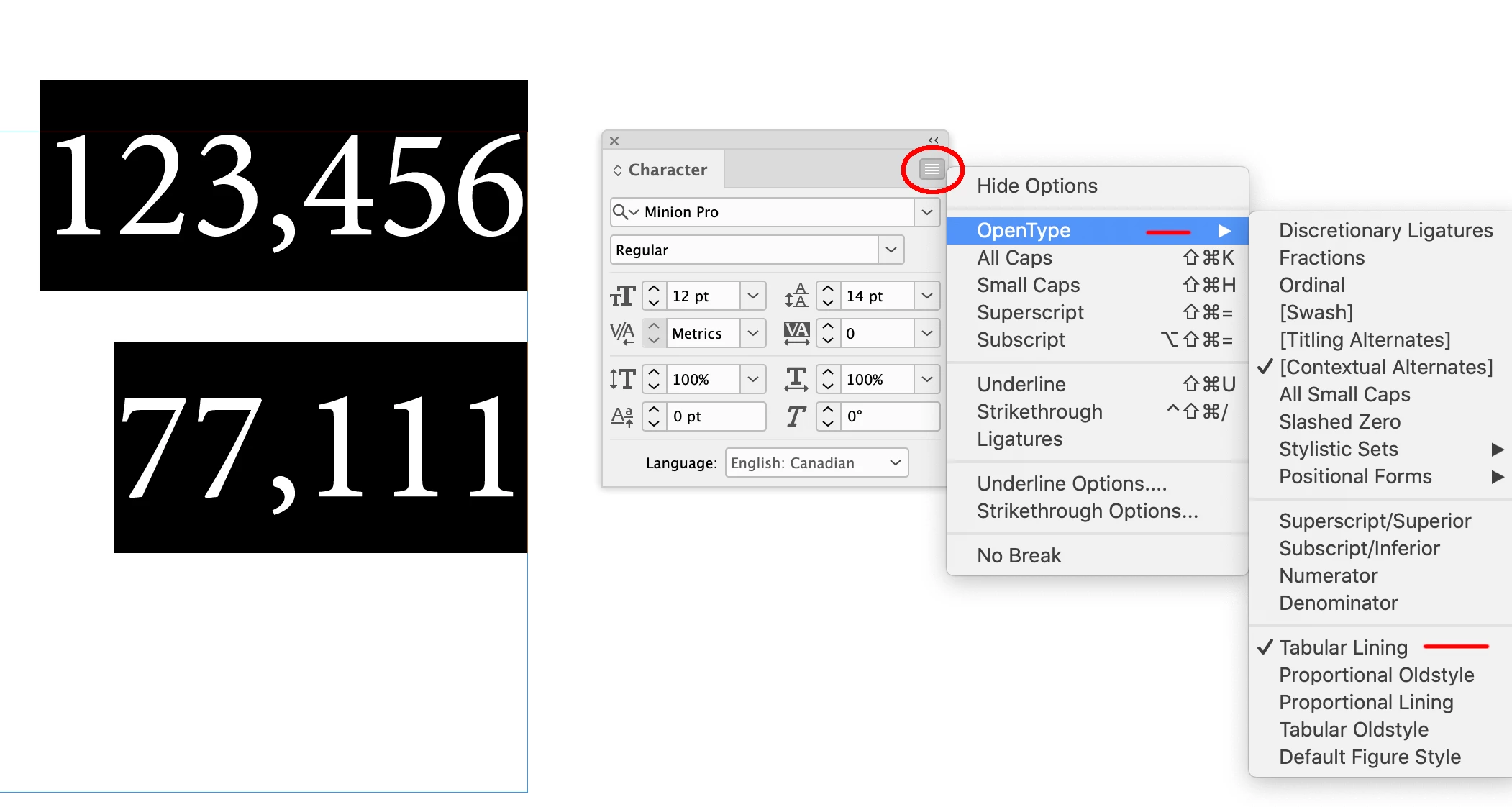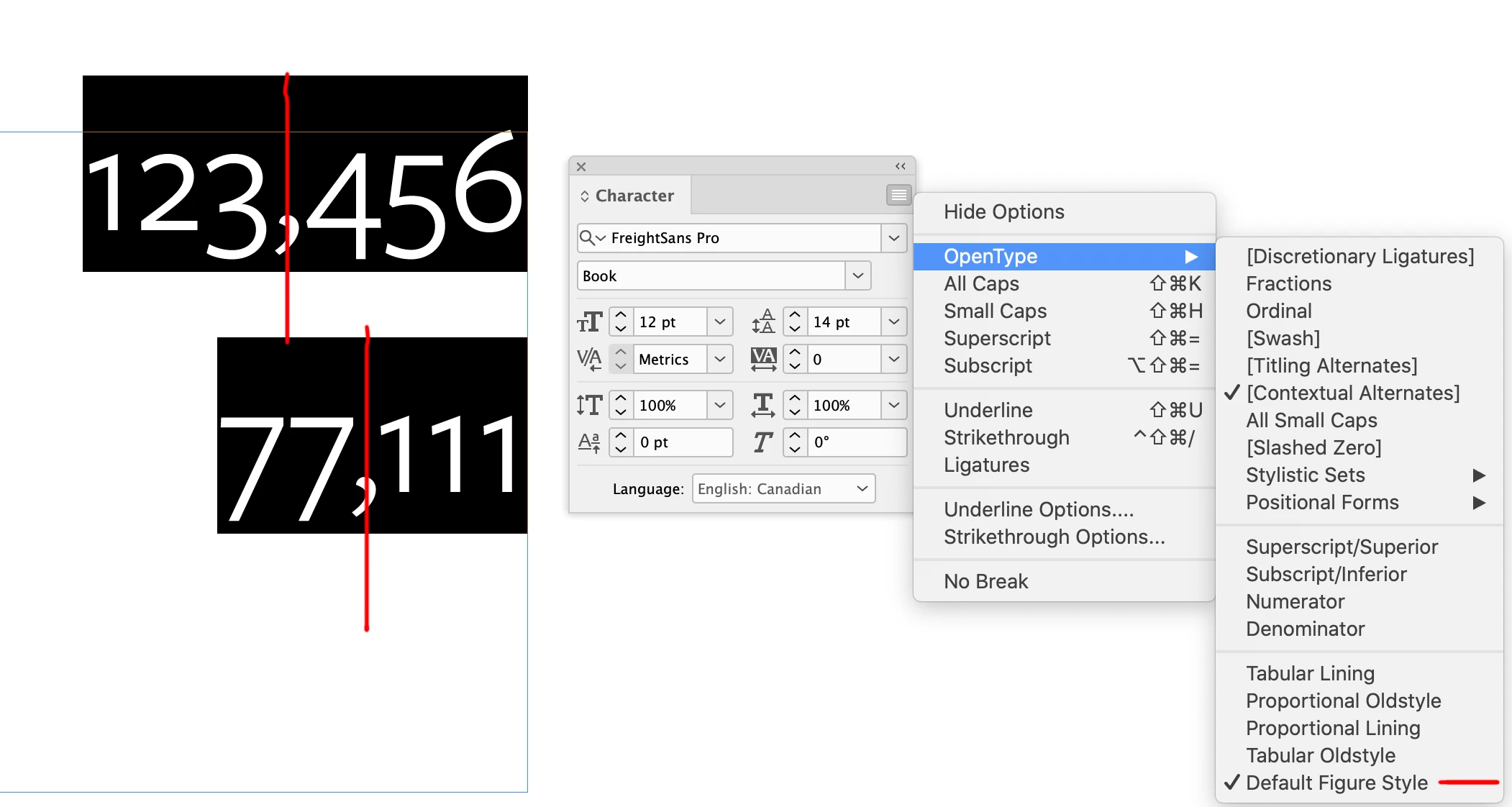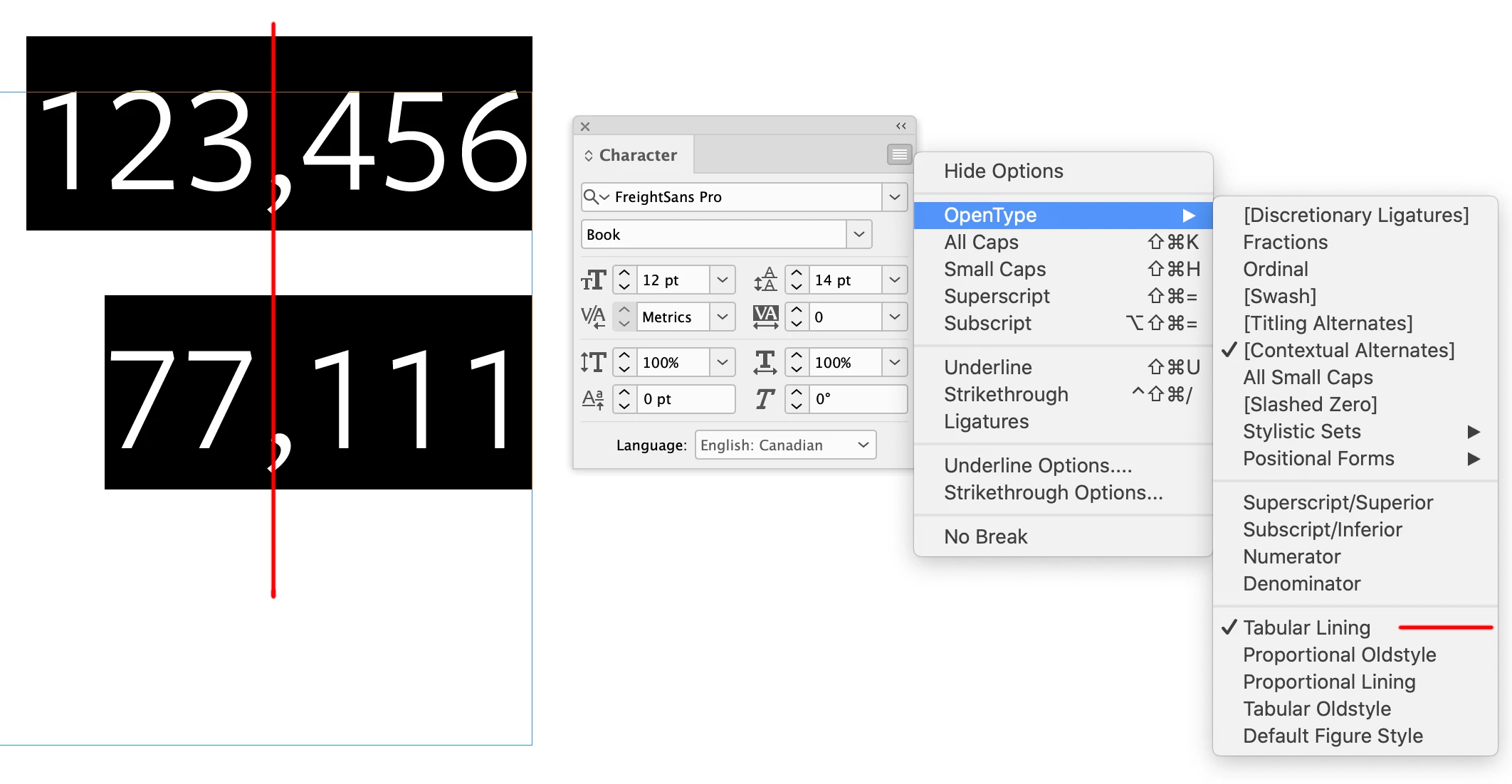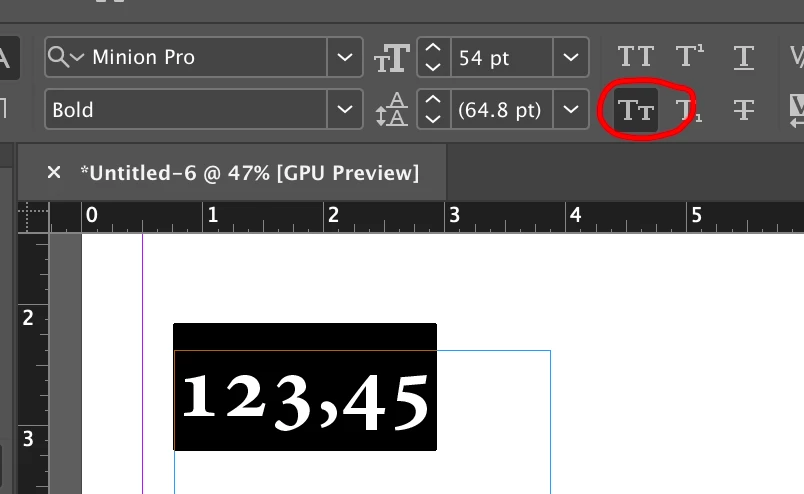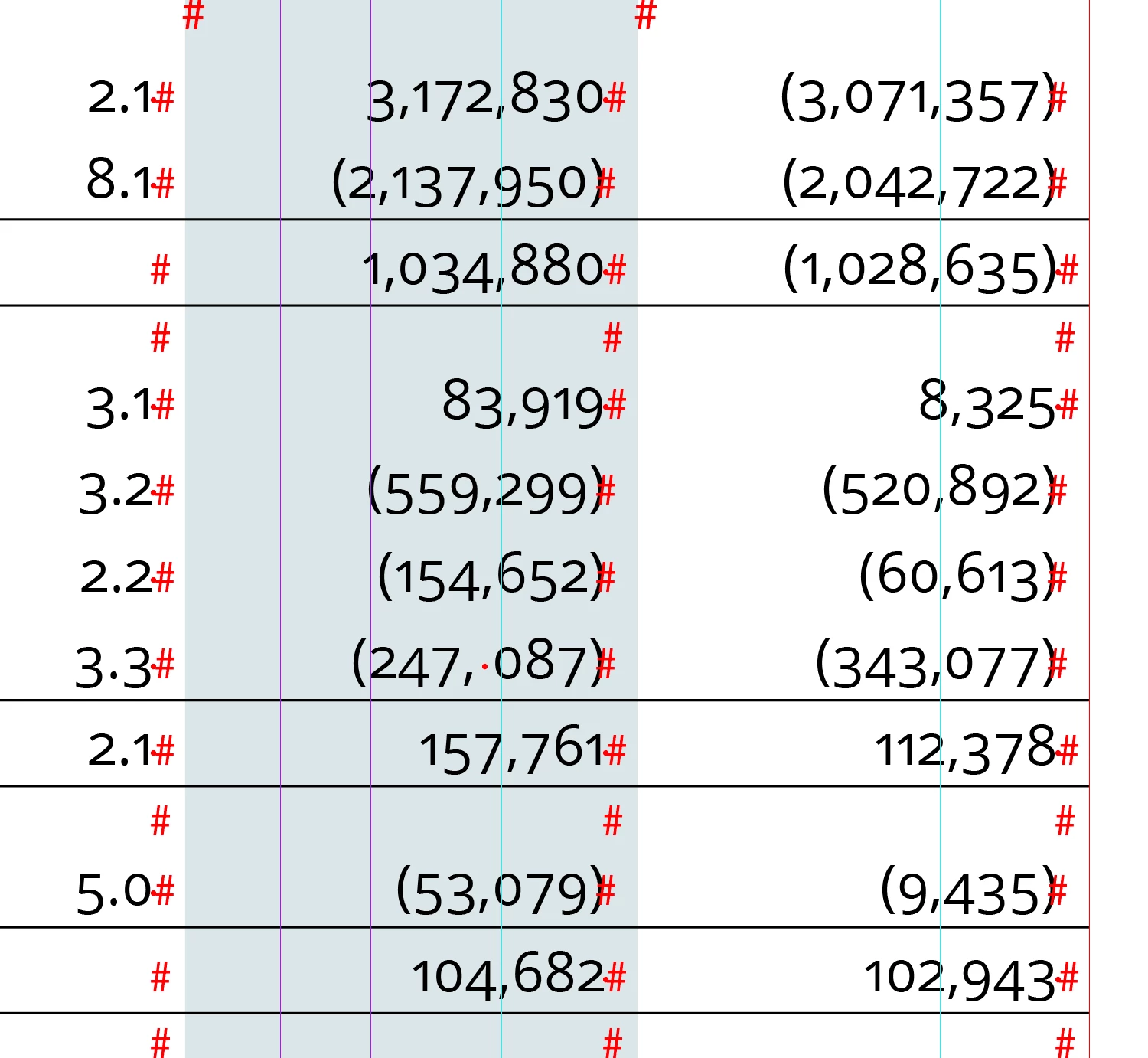
Does anyone know of a font to use for numbers in a table, where the commas line-up, and also lining up with the commas with numbers in brackets. I don't want to have to adjust the right cell inset for each number with no brackets. Or any other suggestions? Thanks Jonathan.
It depends on your font, of course, but most OpenType fonts have the different sets of numbers (figures). You might consider not using the OldStyle figures for tables like these. They look odd, but that's just me. If you select Tabualr Lining, it uses uniform numbers instead.
Set up and define a style for text in the cells and apply the style you want for all text, just select cells and click on the style you have saved in the paragraph style.
Hi. Thanks for that. I did try that before but the commas in the numbers inside brackets still don't line up with the commas in the numbers without brackets. It's just the brackets throw everything out. I guess I'm hoping for a silver bullet!!